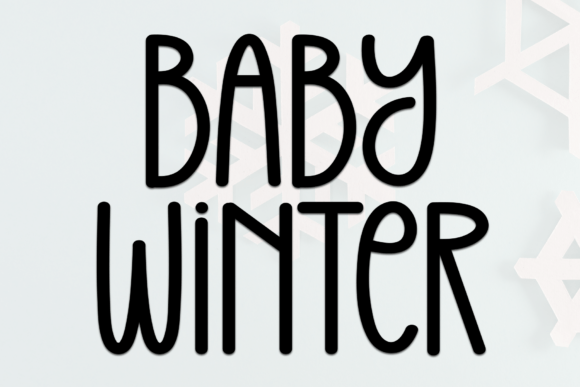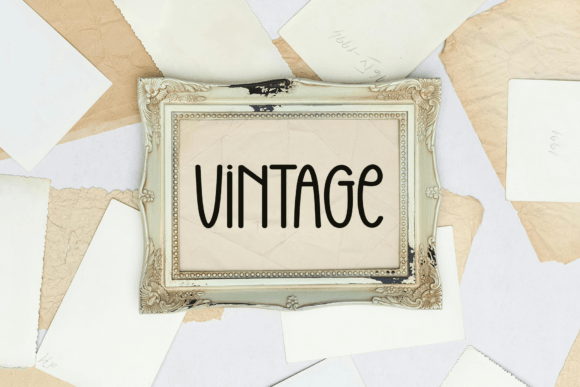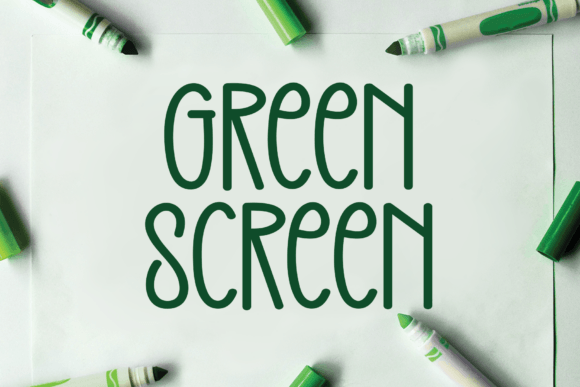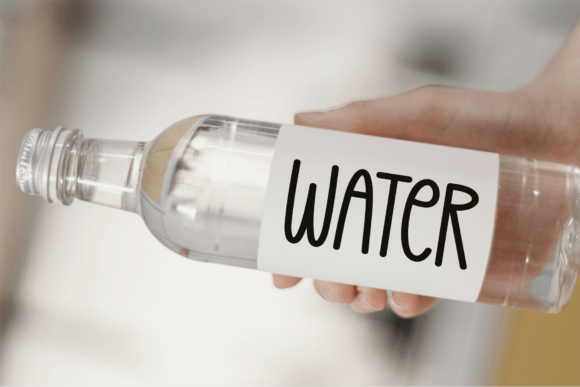
Baby Winter Font: A Cute & Playful Script for DIY Projects
About the Baby Winter Font
The Baby Winter Font is here to transform your projects with its distinctive character and style. Baby Winter is a playful script font that looks like it was drawn with a bold marker. It has a casual, sporty vibe, perfect for making your text stand out with a fun, energetic feel.
Baby Winter excels in headlines, short slogans, and logos where its bold, playful character can shine. It’s ideal for projects targeting a young, active audience, such as sportswear branding, children’s products, or event posters. Avoid using it for body text or lengthy paragraphs; its informal style is not suited for extended readability.
Consider pairing Baby Winter with a clean sans-serif like Open Sans for a balanced contrast, or a geometric sans-serif like Futura for a more modern feel. A simple serif like Merriweather could add a touch of sophistication to balance its casual energy.
The font’s core personality is energetic and friendly, conveying a sense of youthful fun. It’s not appropriate for projects requiring a formal or sophisticated tone.
Baby Winter Font Usage Examples
Baby Winter Font Example